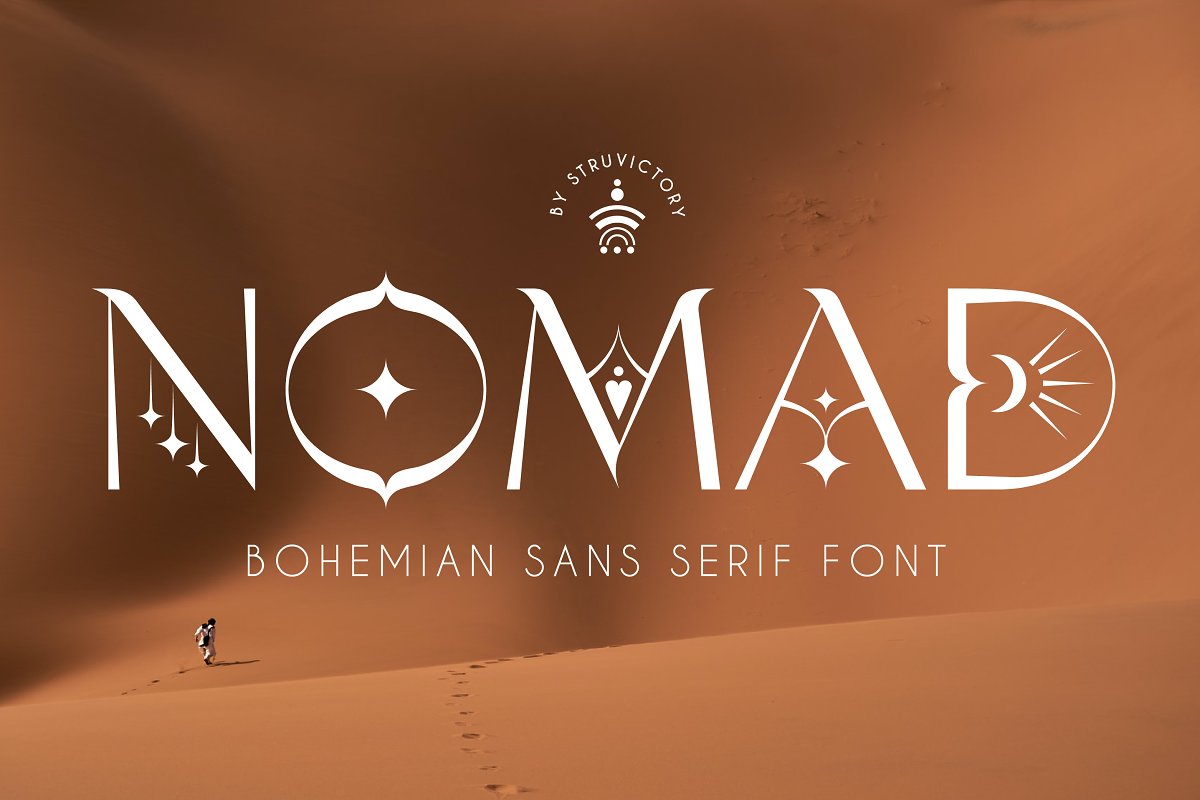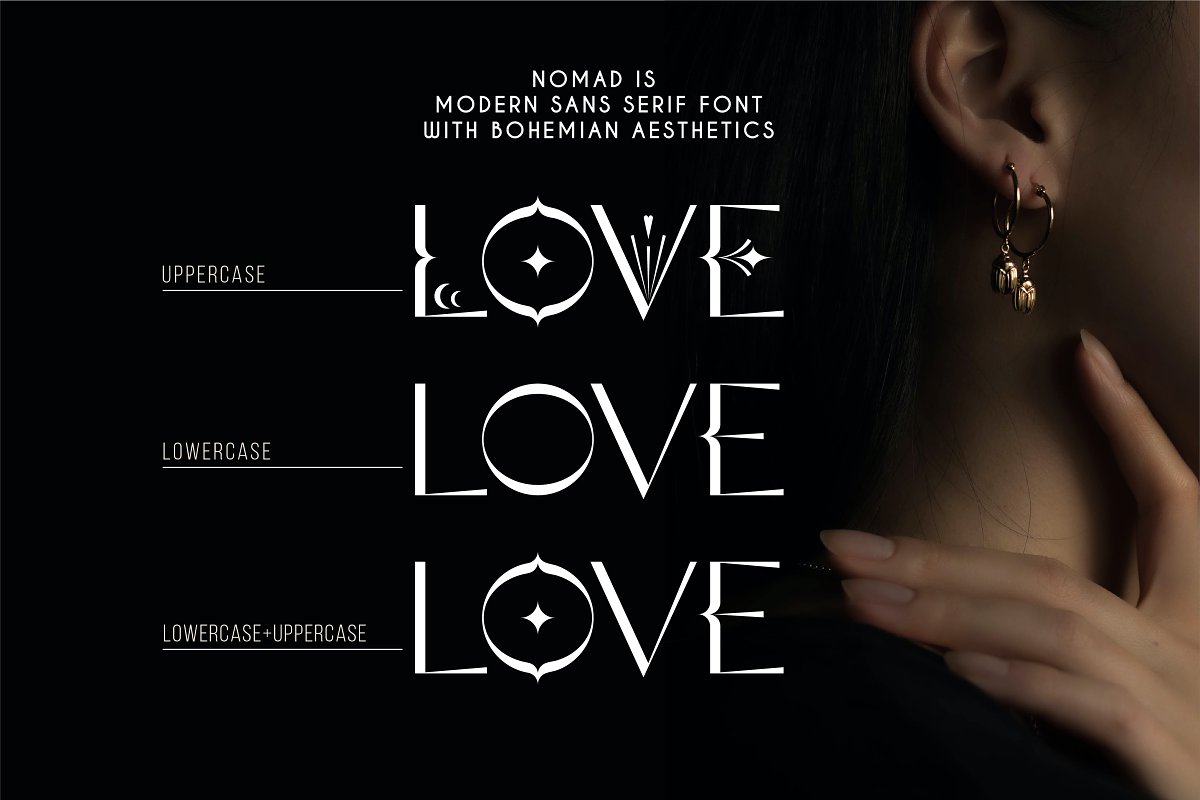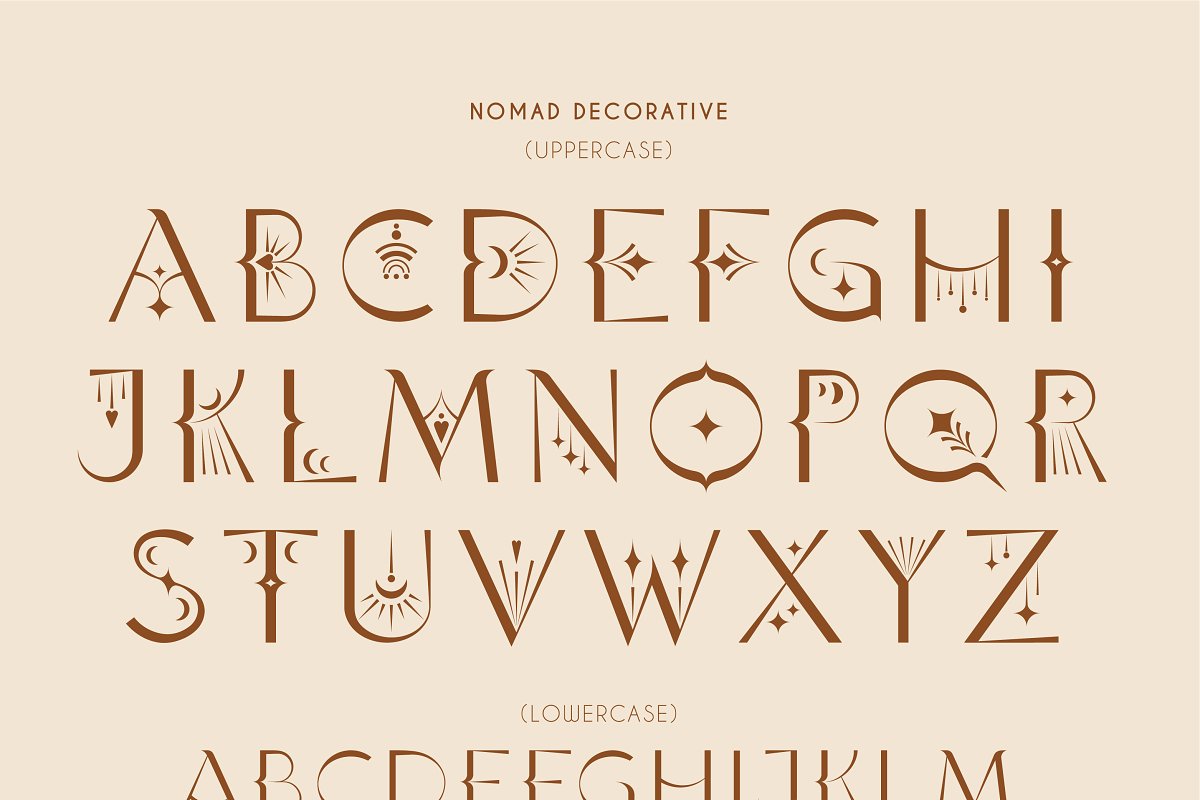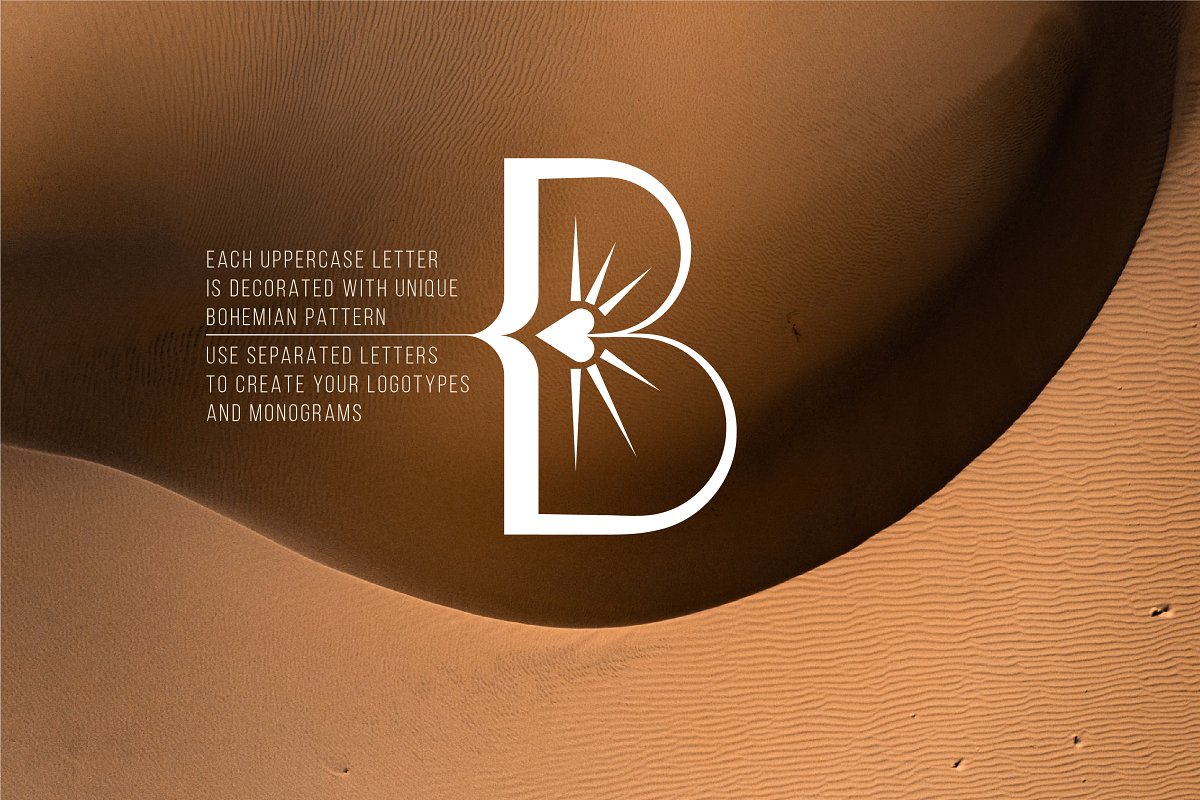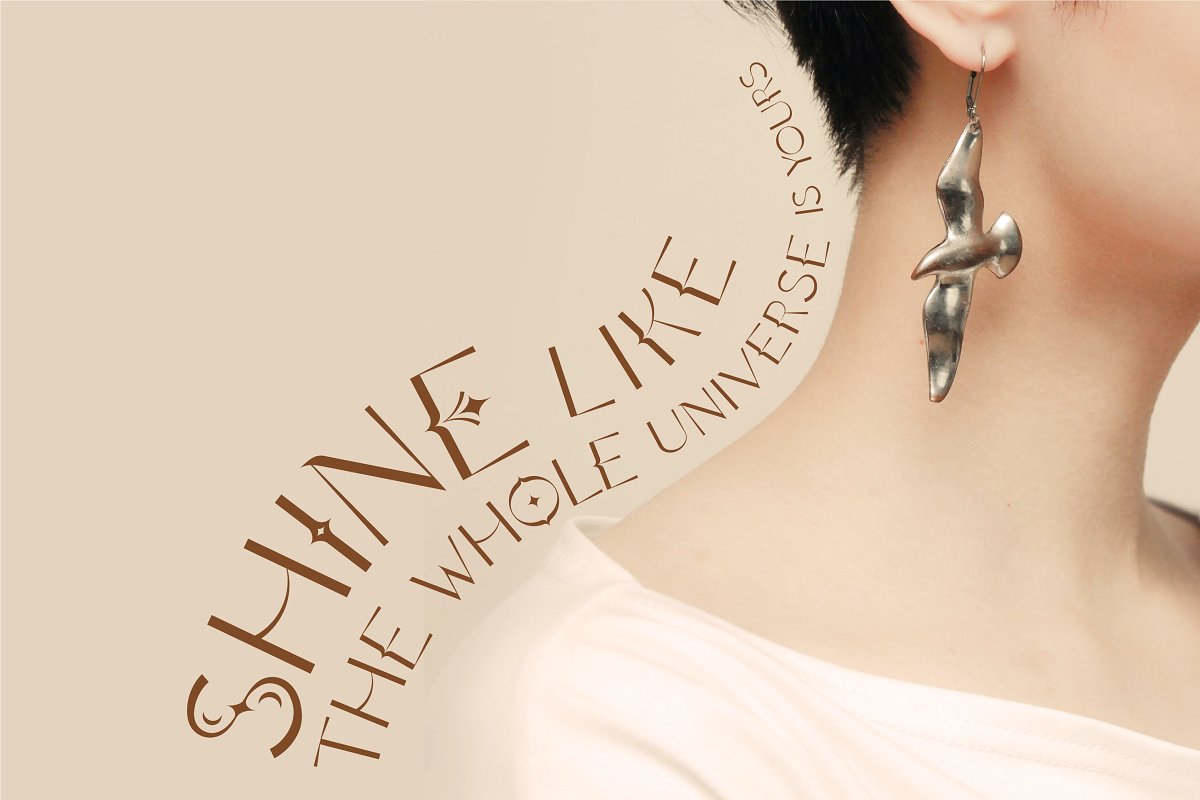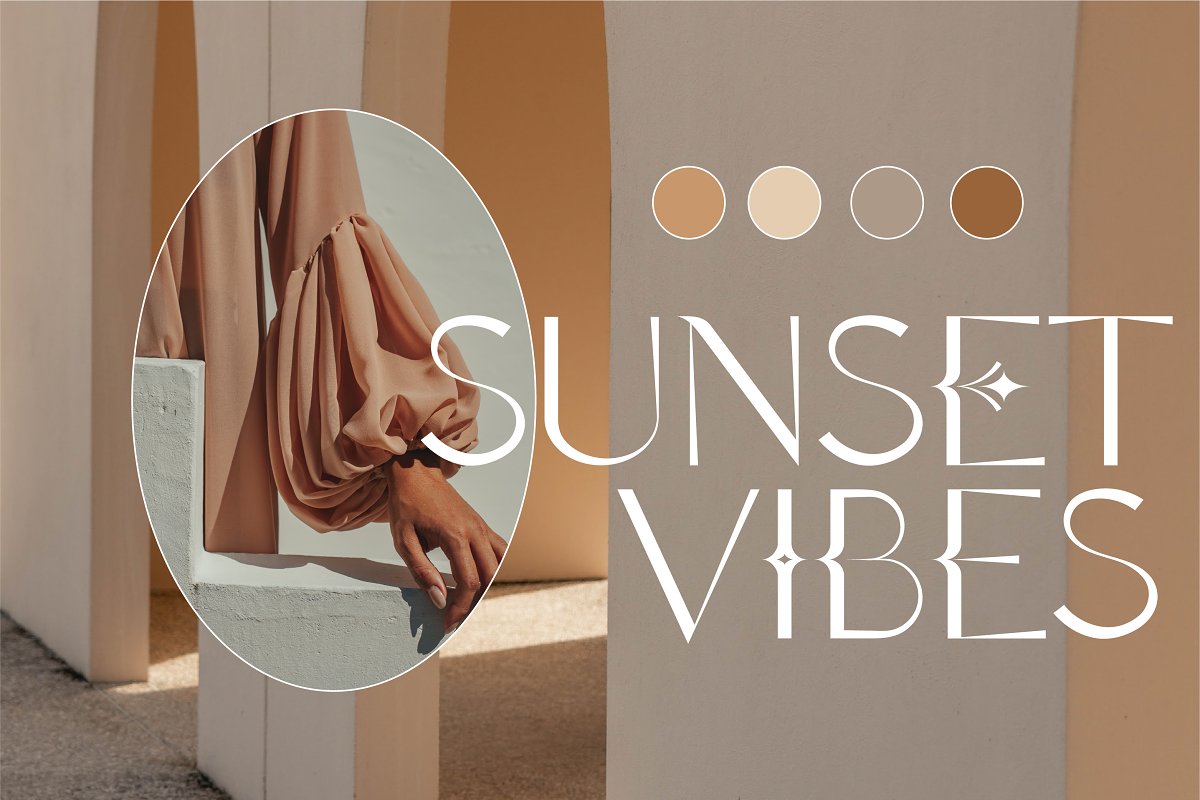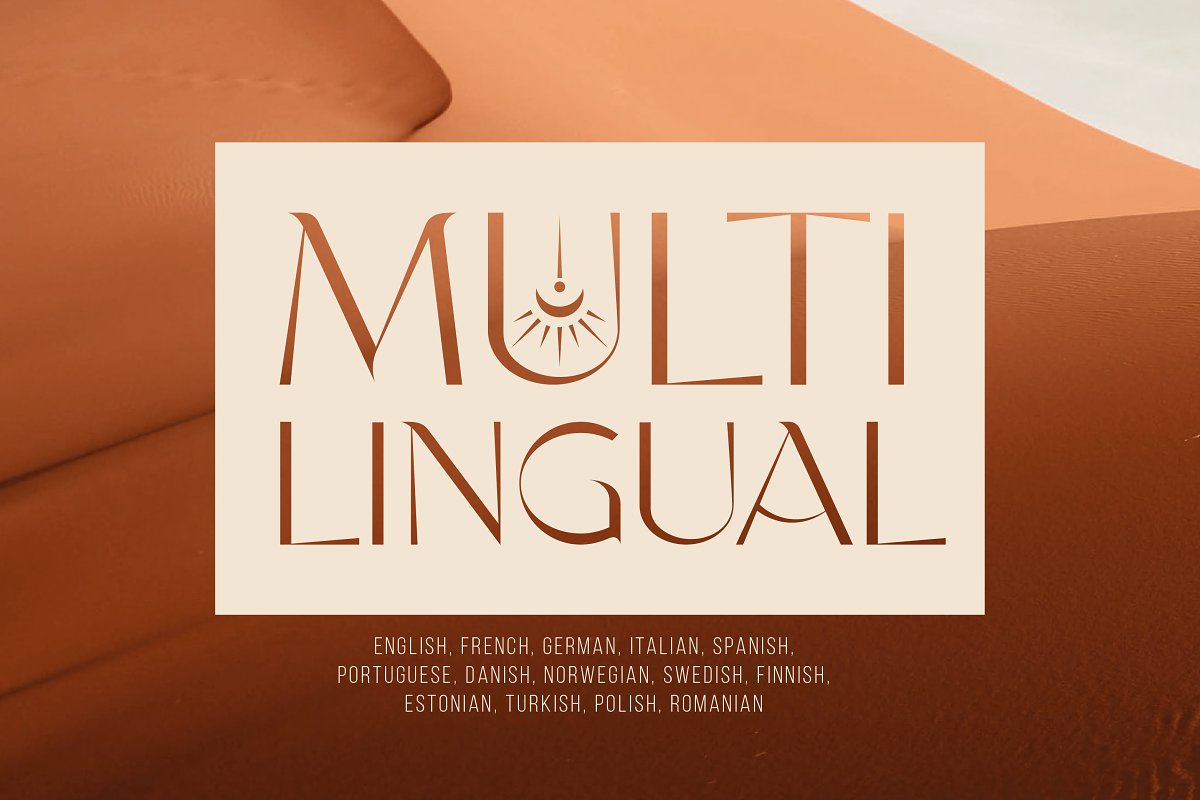
About the Nomad Bohemian Sans Serif Font
NOMAD is a modern sans serif font with bohemian motives, The font is created in classic proportions and decorated with celestial and boho decor, NOMAD is represented by sans serif lowercase and ornate uppercase, The font is suitable for the design on the theme of astrology, mysticism, spirituality, witchcraft, magic, esotericism, WHAT YOU GET:NomadDecorative